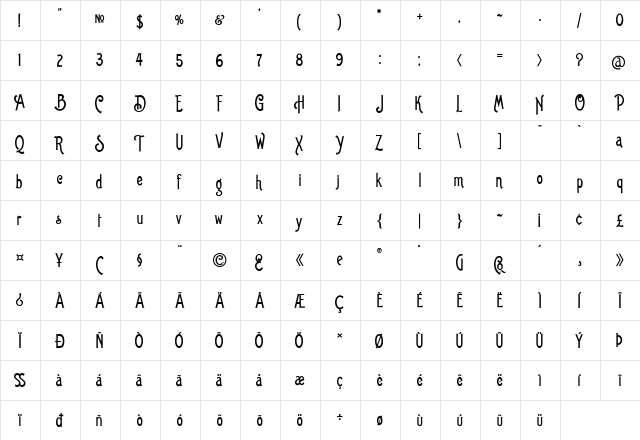
LHF Billhead 1890 Regular
LHF Billhead 1890 is a composed and adaptable typeface that performs quietly and consistently across a wide range of design contexts.